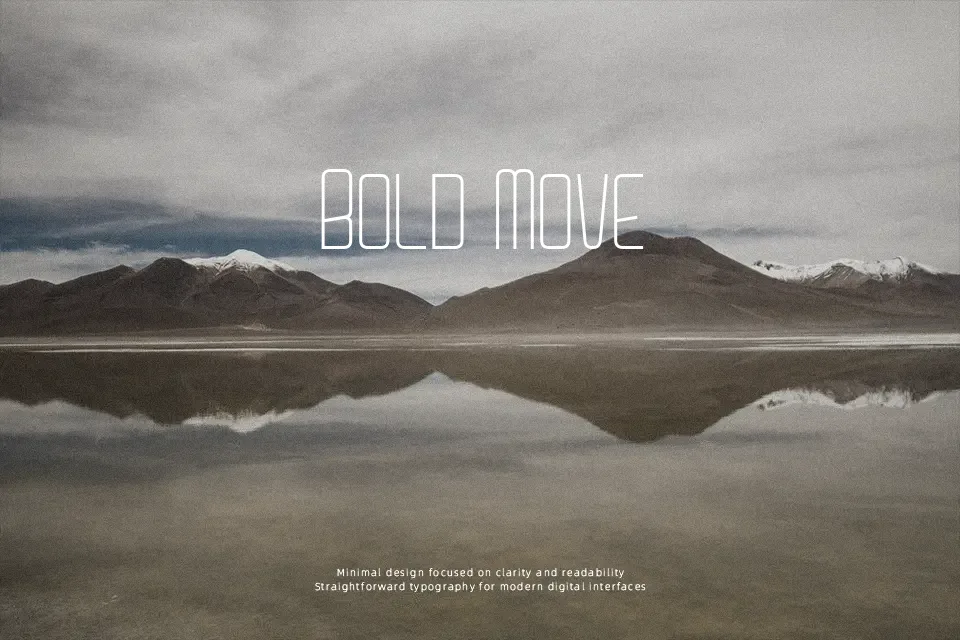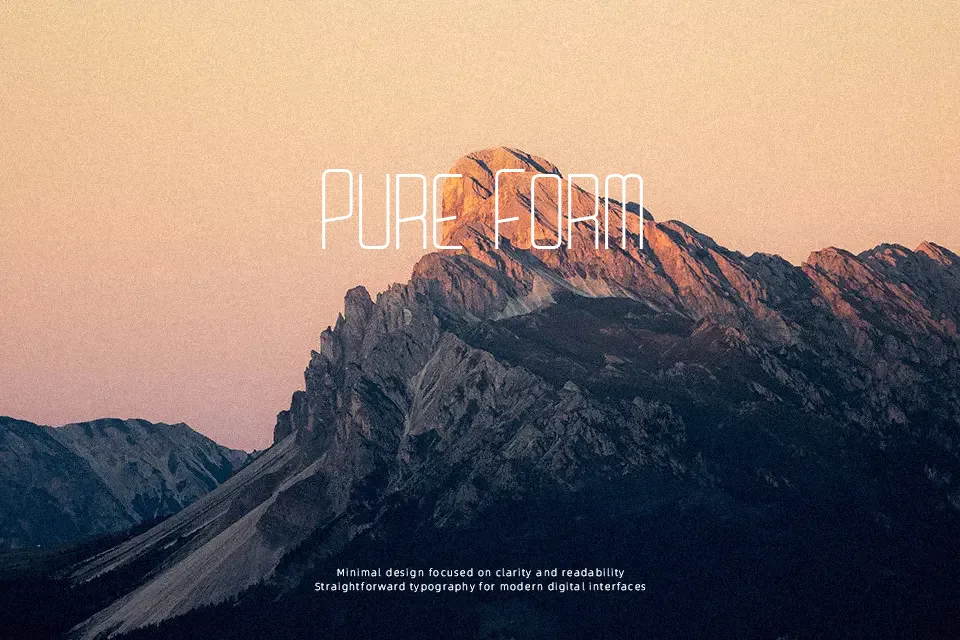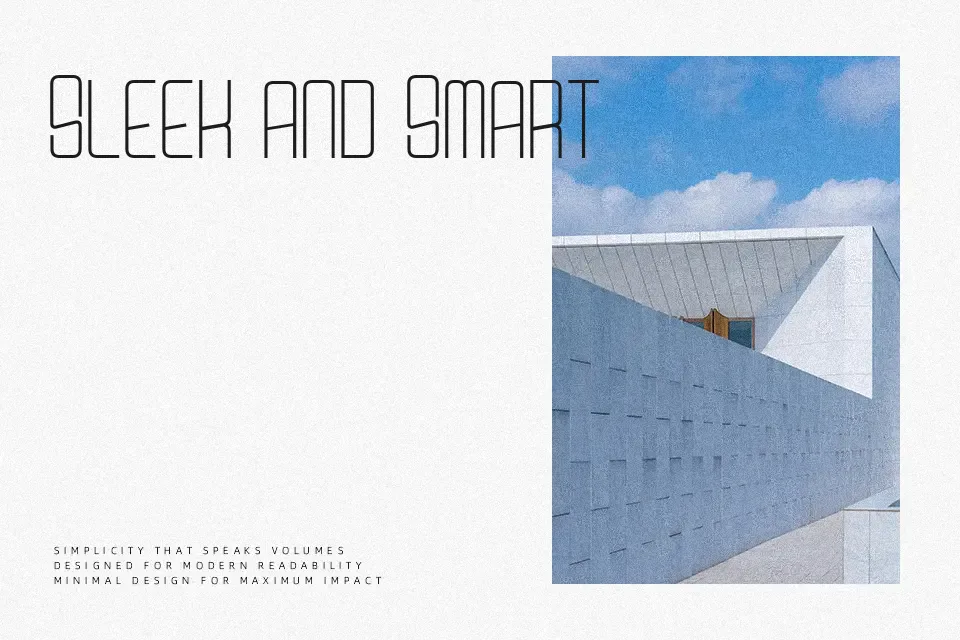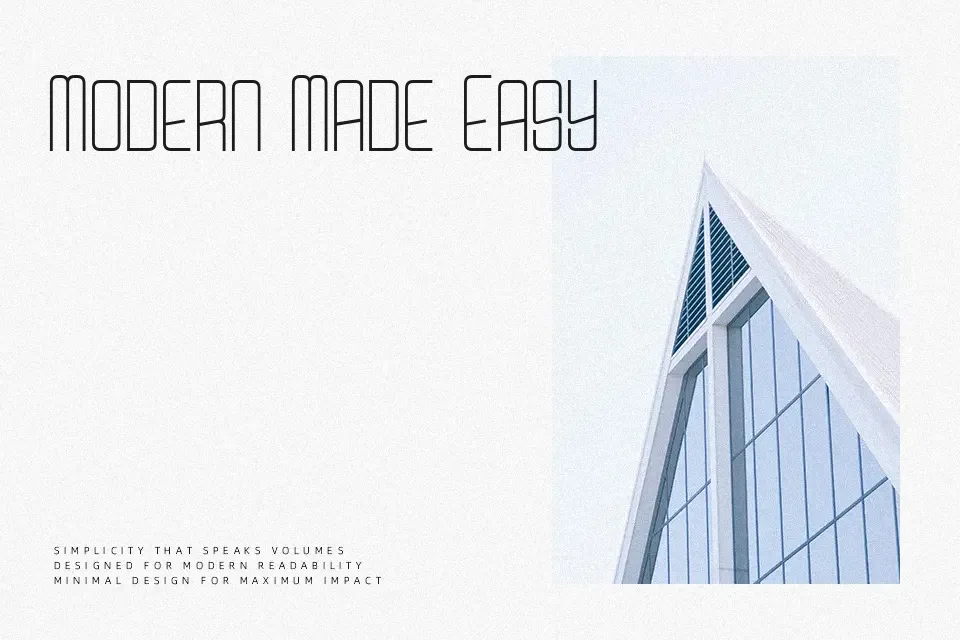
Carson Sans Font
Designed by TJ Breil
Designed for prominent headlines, Carson Sans Font combines structured sans serif geometry with distinctive retro display styling and balanced letter spacing. The uniform stroke thickness and moderate character proportions establish an authentic vintage aesthetic suitable for poster titles, apparel prints, and retail signage. Generous internal counters and clean terminals ensure that the letterforms remain immediately legible across short phrases and medium display settings. Even so, the decorative retro shapes and specialized character styling make the typeface less effective for continuous paragraph text or small mobile interface labels, where dense blocks of copy quickly reduce overall reading comfort.
Best For: vintage poster headlines, retro packaging labels, apparel graphic prints, retail display signage
Not Ideal For: long paragraph text, mobile app body copy, dense editorial layouts, small interface labels
Perfect for advertising, branding, and headline, with a creative and display style.